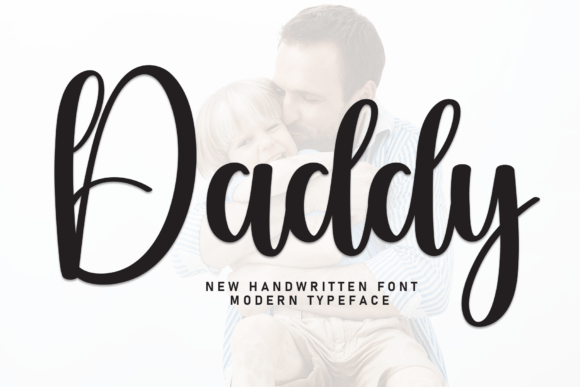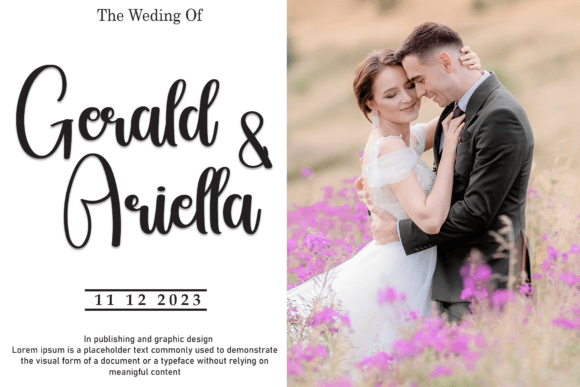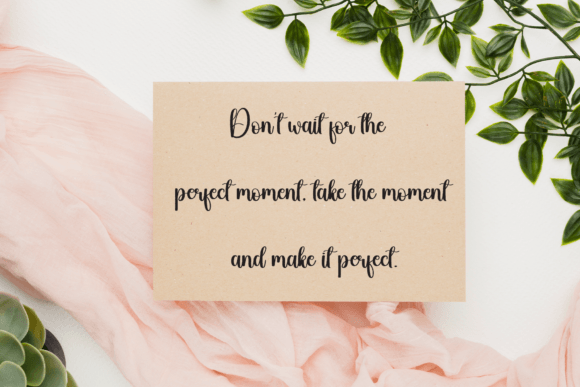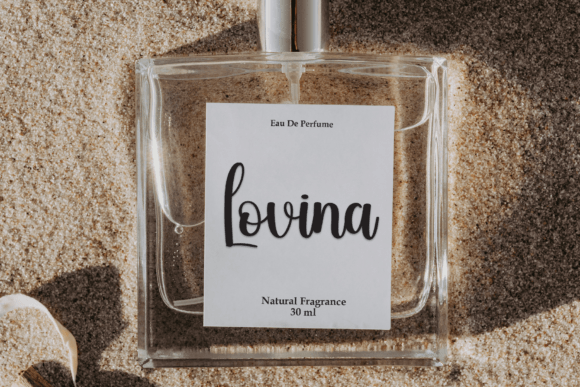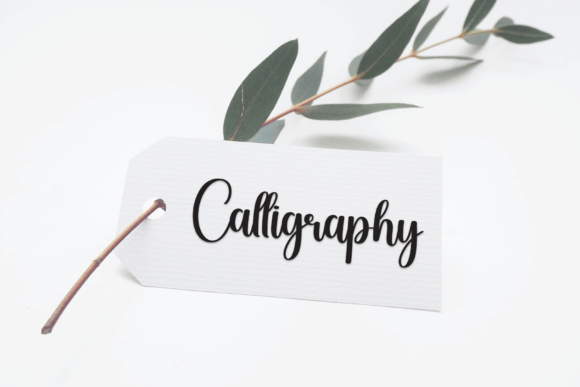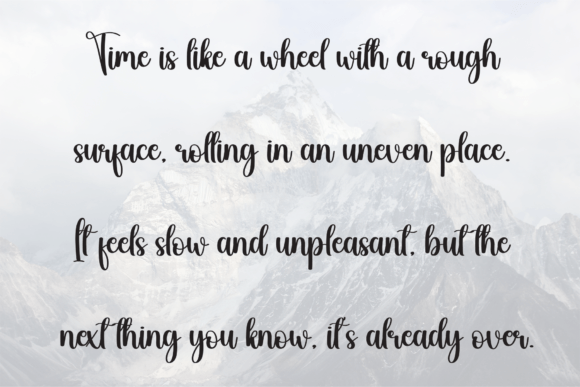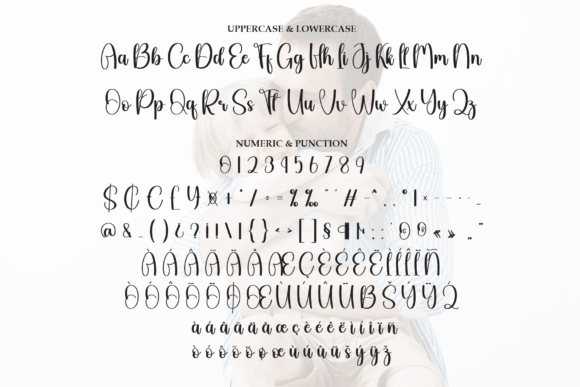
Daddy Font: The Perfect Addition to Your Design Toolbox
You know that moment when you’re brainstorming ideas for a special project, and suddenly, a spark of inspiration strikes? Maybe it’s a wedding invitation, a birthday card, or a social media post that needs a personal touch. That’s when you realize, you need a font that’s both cute and versatile – a font that can convey your message with warmth and elegance.
Enter Daddy Font, a sweet and friendly handwritten font designed to bring a smile to your audience’s faces. With its endearing charm, Daddy Font is perfect for writing wedding invitations, cards, or any other design that requires a lovely touch. Whether you’re a seasoned designer or a creative newbie, Daddy Font is a valuable addition to your toolkit, offering endless possibilities for crafting unique and memorable designs.
Daddy Font Key Features
- Unique Characteristics: Daddy Font fonts are known for their unique and stylish designs, with a focus on creating visually appealing typography.
Daddy Font Review
Overall, I have mixed feelings about Daddy Font. On one hand, I appreciate the unique, playful aesthetic it brings to the table. ✨ The font’s irregularities and imperfect curves give it a quirky, hand-drawn feel that can add character to a design.
- ✨ The font’s whimsical nature makes it perfect for projects that need a lighthearted touch.
- ✨ It’s great for creating a sense of nostalgia or retro charm.
- ✨ Daddy Font is available in a range of weights, from light to bold, making it easy to use in various design contexts.
- ⚠️ The font can be difficult to read in smaller sizes or at a distance, which may limit its use in certain applications.
- ⚠️ The irregularities that make the font so charming can also make it challenging to use in situations where precision and clarity are crucial.
Overall, Daddy Font is a fun and creative choice, but it’s not without its limitations. It’s best suited for projects that prioritize personality and whimsy over precision and readability.
Daddy Font is commonly used for:
- Watercolor textures for a dreamy effect
- Illustrations of whimsical characters, such as animals or clouds
- A pastel color palette to add a touch of sweetness
- Retro-inspired patterns, such as polka dots or chevrons
- A distressed or vintage-inspired texture to add a tactile feel
- A bold, bright color palette to create a sense of excitement